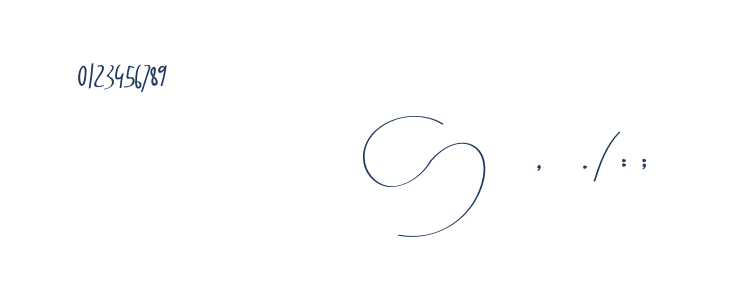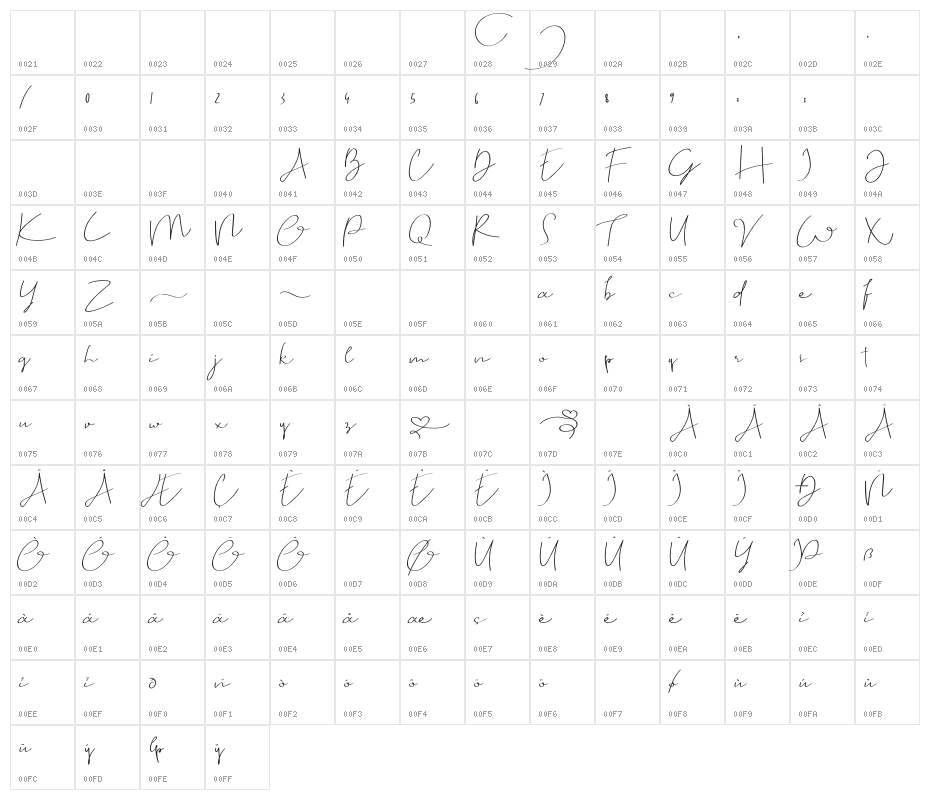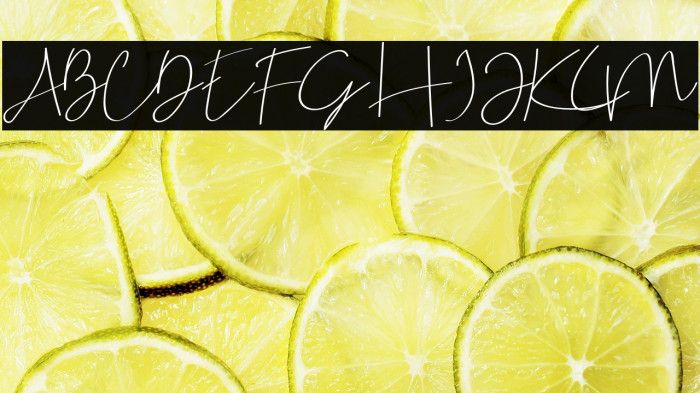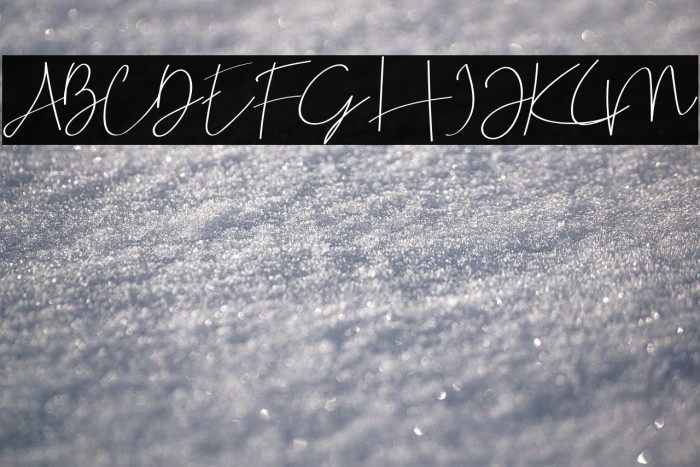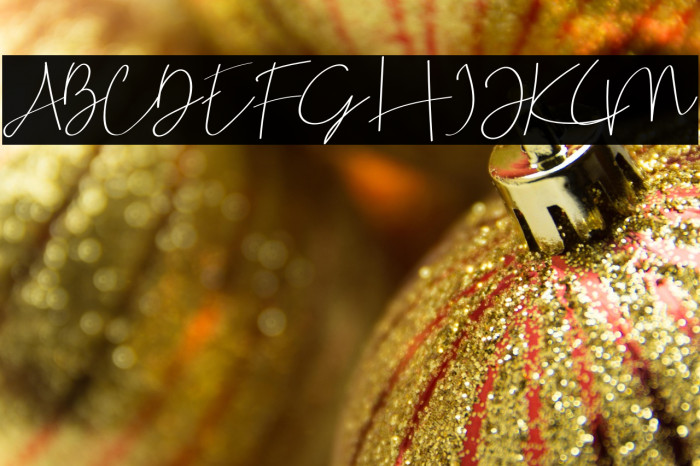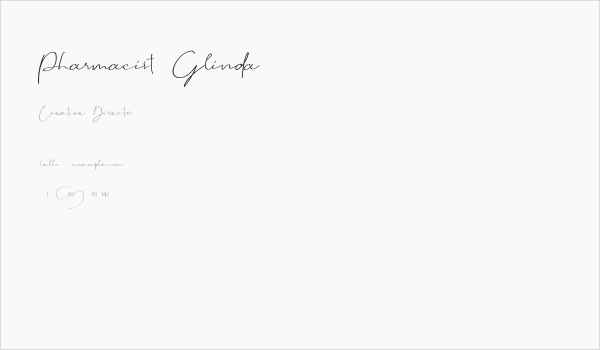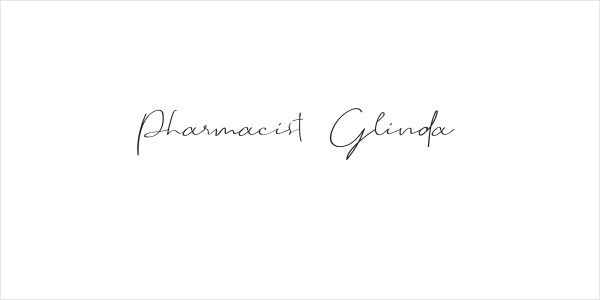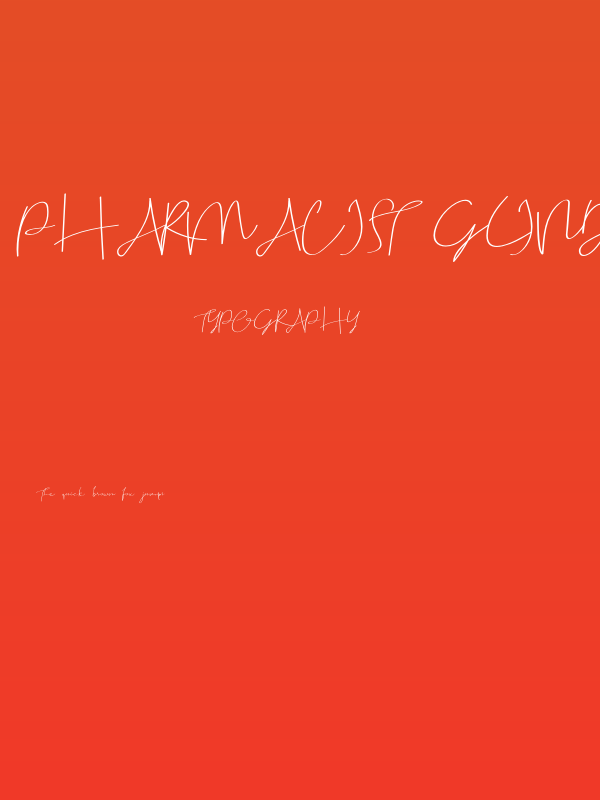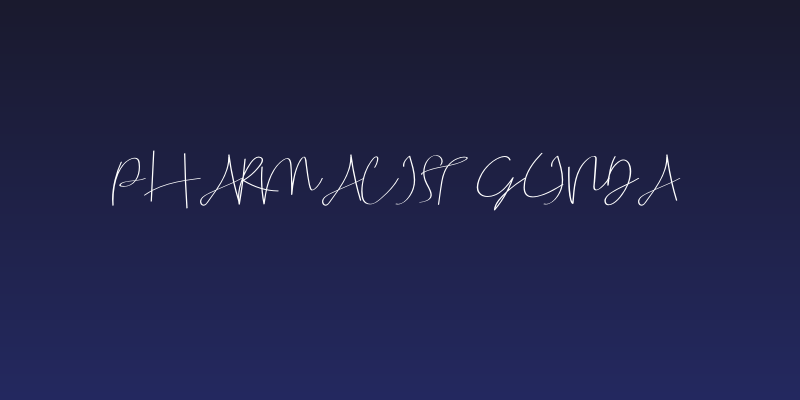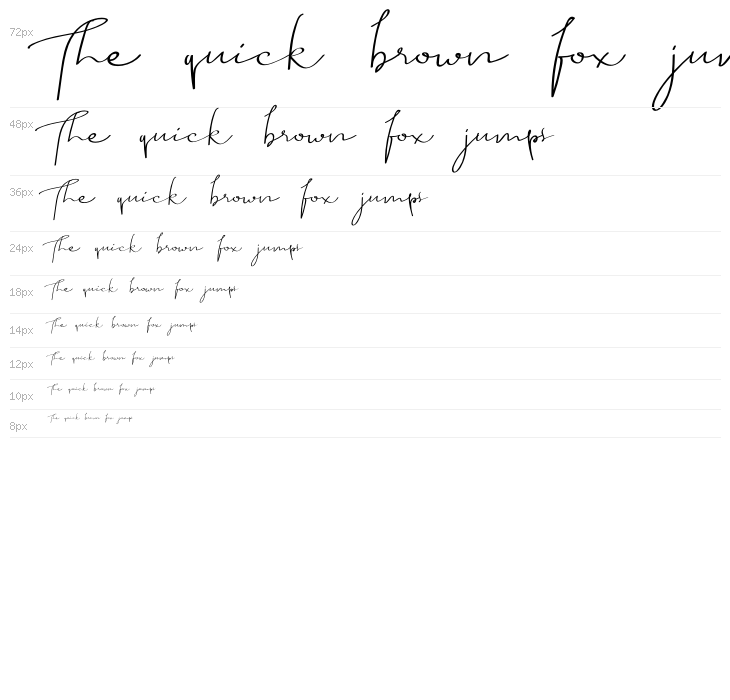
Pharmacist Glinda Font
Pharmacist Glinda Description
This font exudes a whimsical and elegant charm, characterized by its flowing, cursive style. The uppercase letters are tall and slender, with graceful loops and swirls that add a touch of sophistication. The lowercase letters maintain a consistent fluidity, with some letters featuring unique, playful tails and ascenders. The numbers are equally stylish, maintaining the font's overall delicate and airy feel. Special characters are thoughtfully designed, complementing the font's artistic flair. This font is perfect for projects that require a personal, handwritten touch, such as invitations, greeting cards, or branding materials.
| Proposed Projects | Ideal for wedding invitations, personal branding, greeting cards, and artistic projects. |